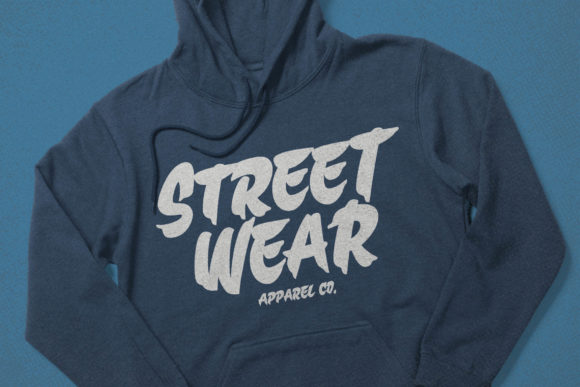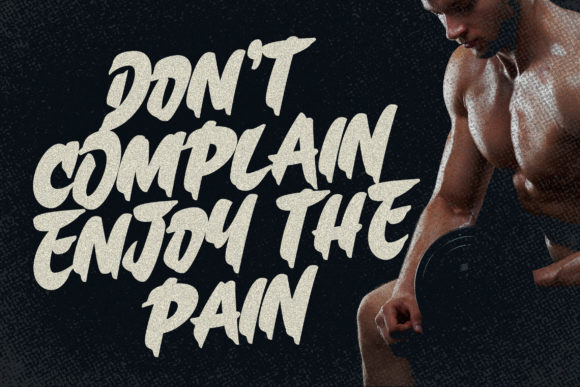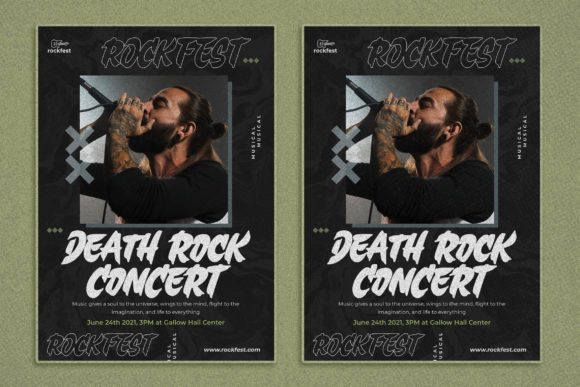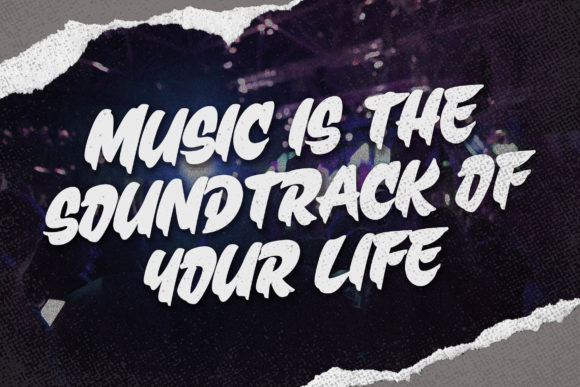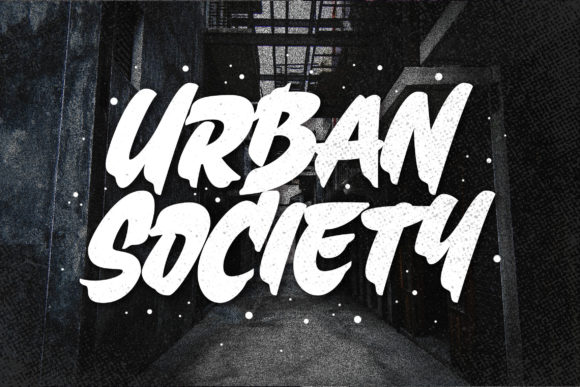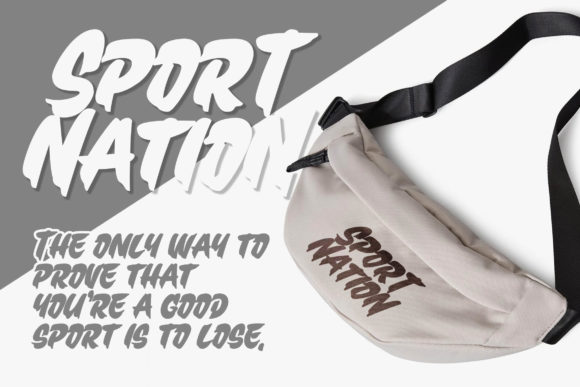
Brenza Font: Unleash Your Creativity with this Awesome Display Font
Are you a designer or crafter looking for a unique and eye-catching font to elevate your creative projects? Look no further than Brenza Font, a stunning paint-brushed display font that exudes a street art vibe. With its bold and edgy style, Brenza Font is perfect for designs that require a touch of urban flair, such as t-shirts, sportswear, logos, advertisements, clothing, and more.
What Makes Brenza Font Stand Out?
Brenza Font is not just another font – it’s an artistic statement. Its paint-brushed texture gives it a raw, hand-crafted feel that’s sure to grab attention. The font’s street art vibe makes it ideal for designers who want to add a touch of rebelliousness to their work. Whether you’re creating a logo, poster, or social media graphic, Brenza Font is sure to make your design stand out from the crowd.
Key Features of Brenza Font
• Unique paint-brushed texture: Gives Brenza Font a distinctive, hand-crafted look that’s perfect for street art-inspired designs.
• Street art vibe: Adds an edgy, urban feel to your designs that’s sure to resonate with fans of street art and graffiti.
• High-quality design: Brenza Font is designed with precision and attention to detail, ensuring that it looks great in any size or application.
• Versatile: Suitable for a wide range of design projects, from t-shirts and sportswear to logos, advertisements, and more.
How to Use Brenza Font in Your Designs
Brenza Font is easy to use and can be incorporated into your designs in a variety of ways. Here are a few ideas to get you started:
• T-shirts and sportswear: Use Brenza Font to create bold, eye-catching designs for t-shirts, hoodies, and other sportswear items.
• Logos and branding: Brenza Font is perfect for creating unique and memorable logos that reflect your brand’s personality and style.
• Advertisements: Use Brenza Font to add a touch of urban flair to your advertisements, whether they’re for print, digital, or social media.
• Clothing and accessories: Brenza Font is great for designing labels, tags, and other branding elements for clothing and accessories.
Tips for Getting the Most Out of Brenza Font
To get the most out of Brenza Font, here are a few tips to keep in mind:
• Experiment with different colors: Brenza Font looks great in a variety of colors, so don’t be afraid to experiment and find the perfect hue for your design.
• Play with texture and patterns: Brenza Font’s paint-brushed texture is a key part of its appeal, but you can also experiment with different textures and patterns to add depth and interest to your design.
• Keep it simple: While Brenza Font is bold and eye-catching, it’s best to keep your design simple and focused to ensure that the font is the star of the show.
Brenza Font is an awesome display font that’s perfect for designers and crafters who want to add a touch of street art flair to their creative projects. With its unique paint-brushed texture, street art vibe, and high-quality design, Brenza Font is sure to elevate your designs and make them stand out from the crowd. So why wait? Download Brenza Font today and unleash your creativity!